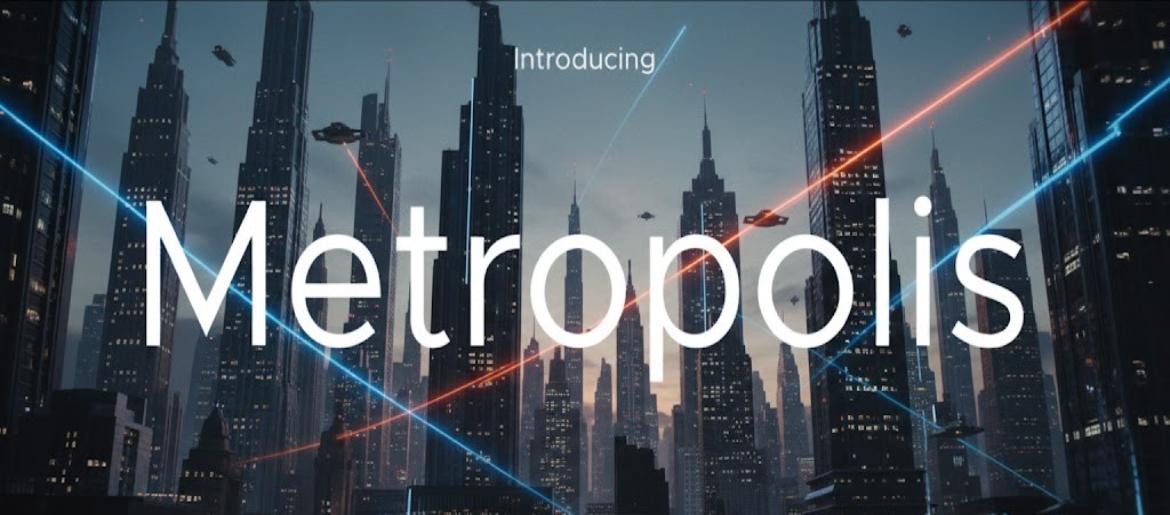
Metropolis Font
Metropolis Font is a modern sans serif typeface created by Chris Simpson, inspired by classic geometric typography. Featuring 18 versatile styles, it offers flexibility for branding, editorial design, interfaces, and headlines. Its clean structure and balanced proportions provide excellent readability, making it a popular choice among designers and a valuable addition to professional and high-quality free fonts collections.
➤ Font Name: Metropolis
➤ Designer: Chris Simpson
➤ Style: Sans Serif